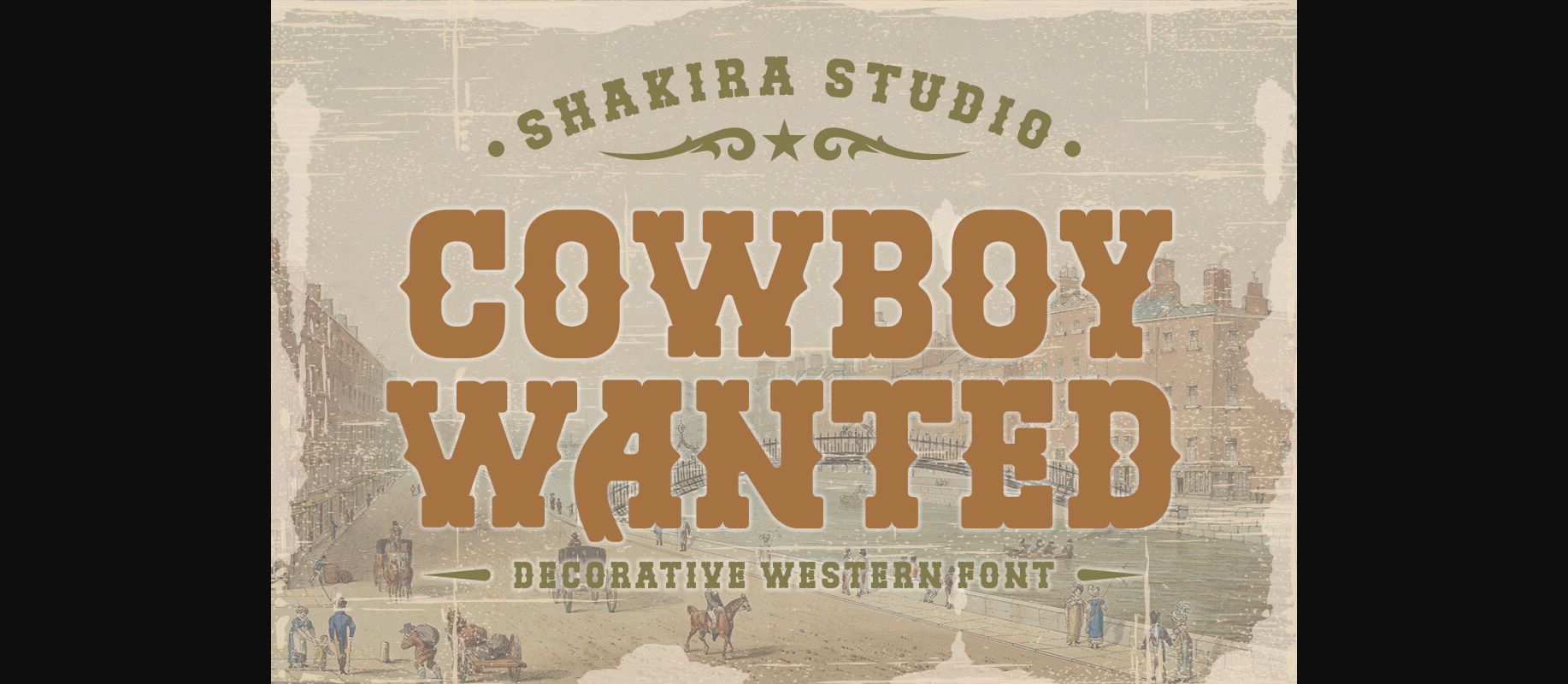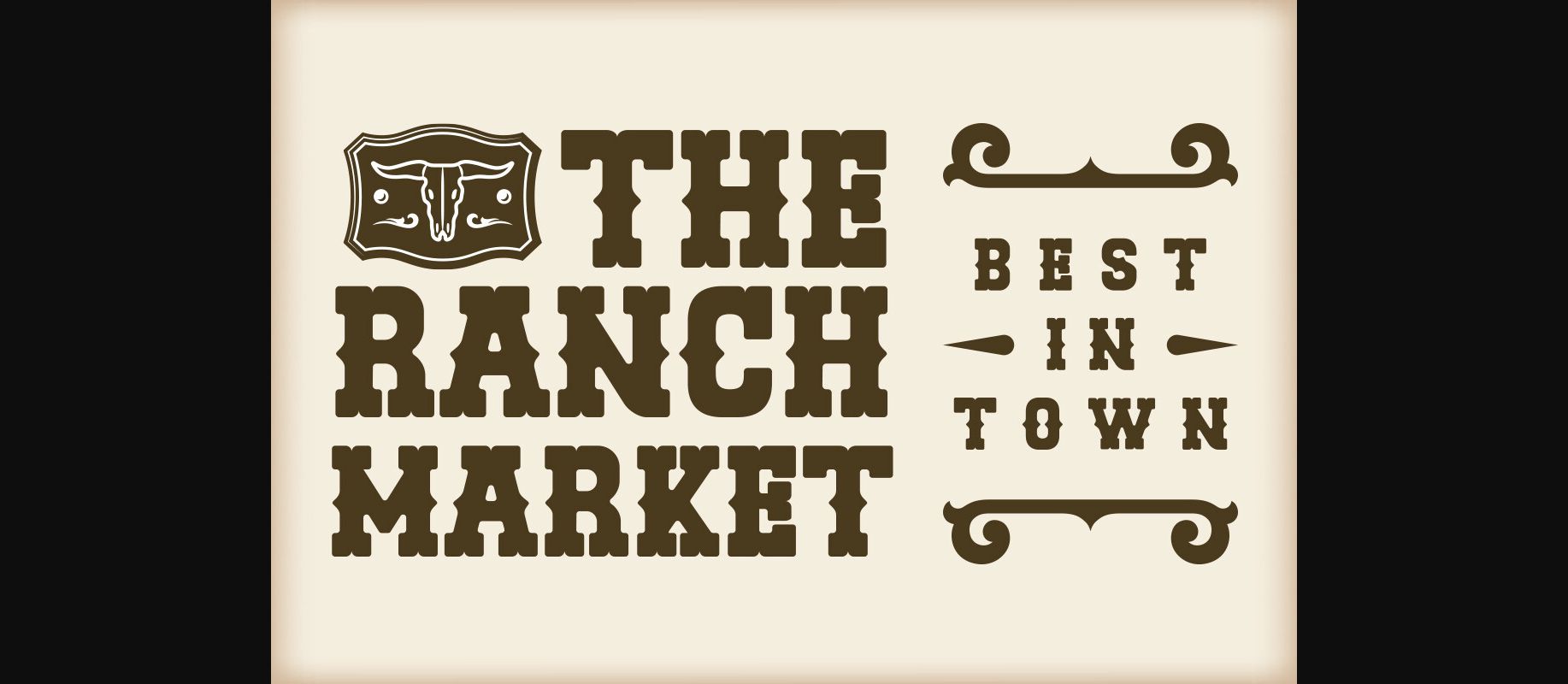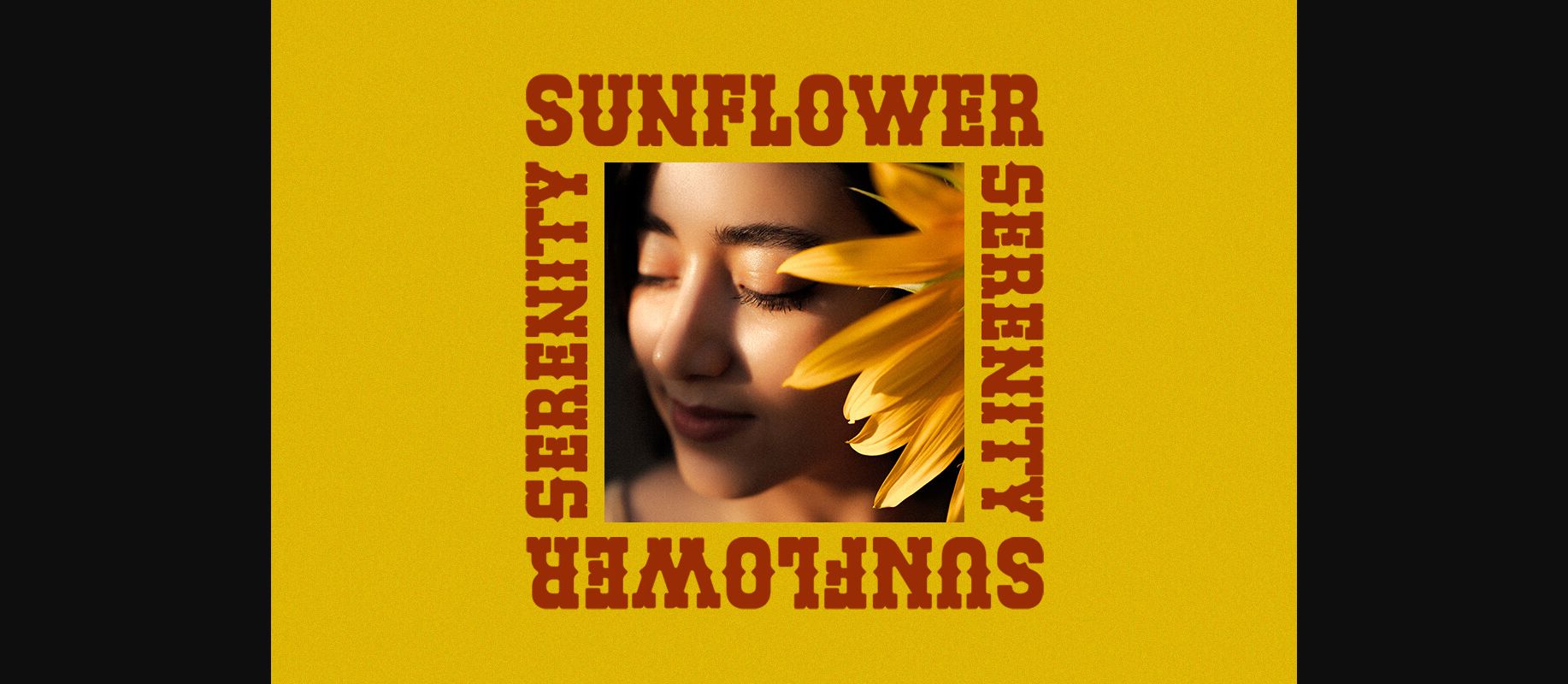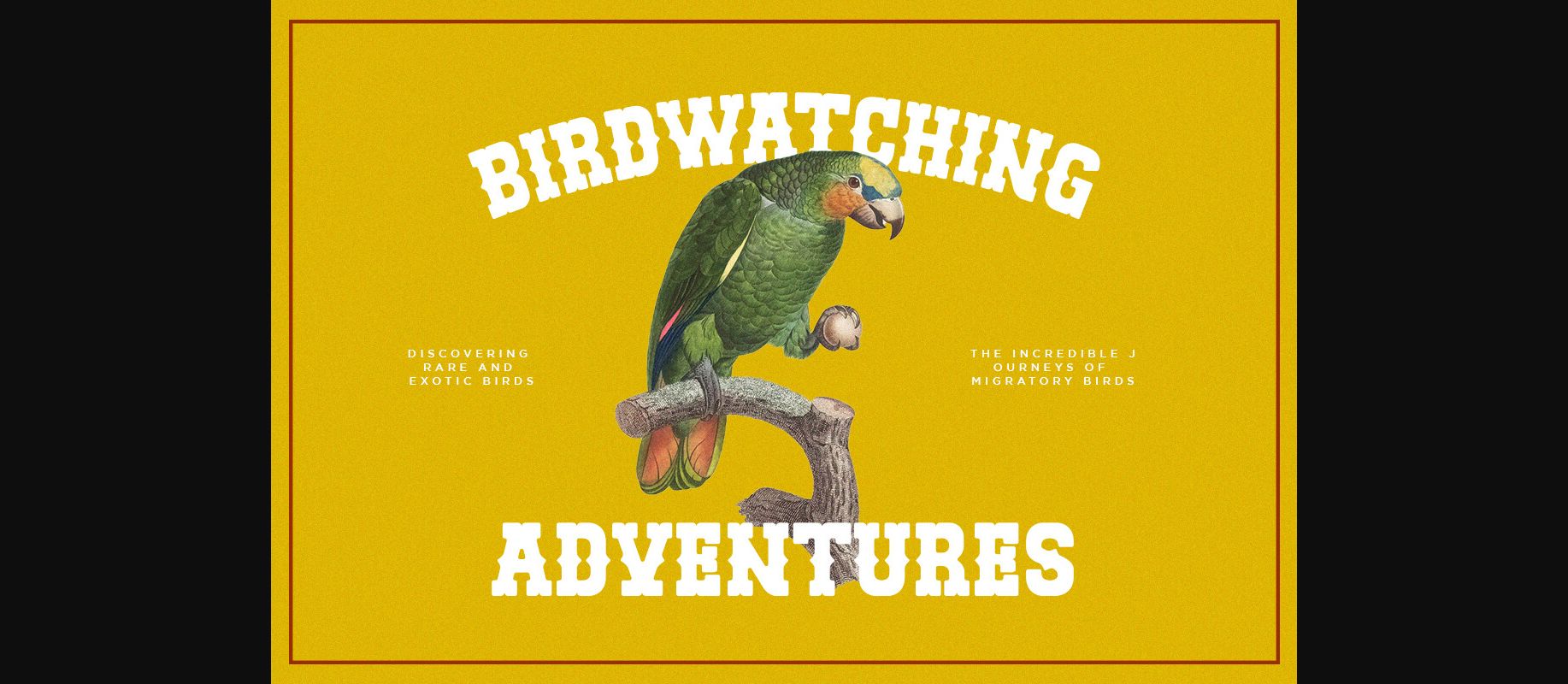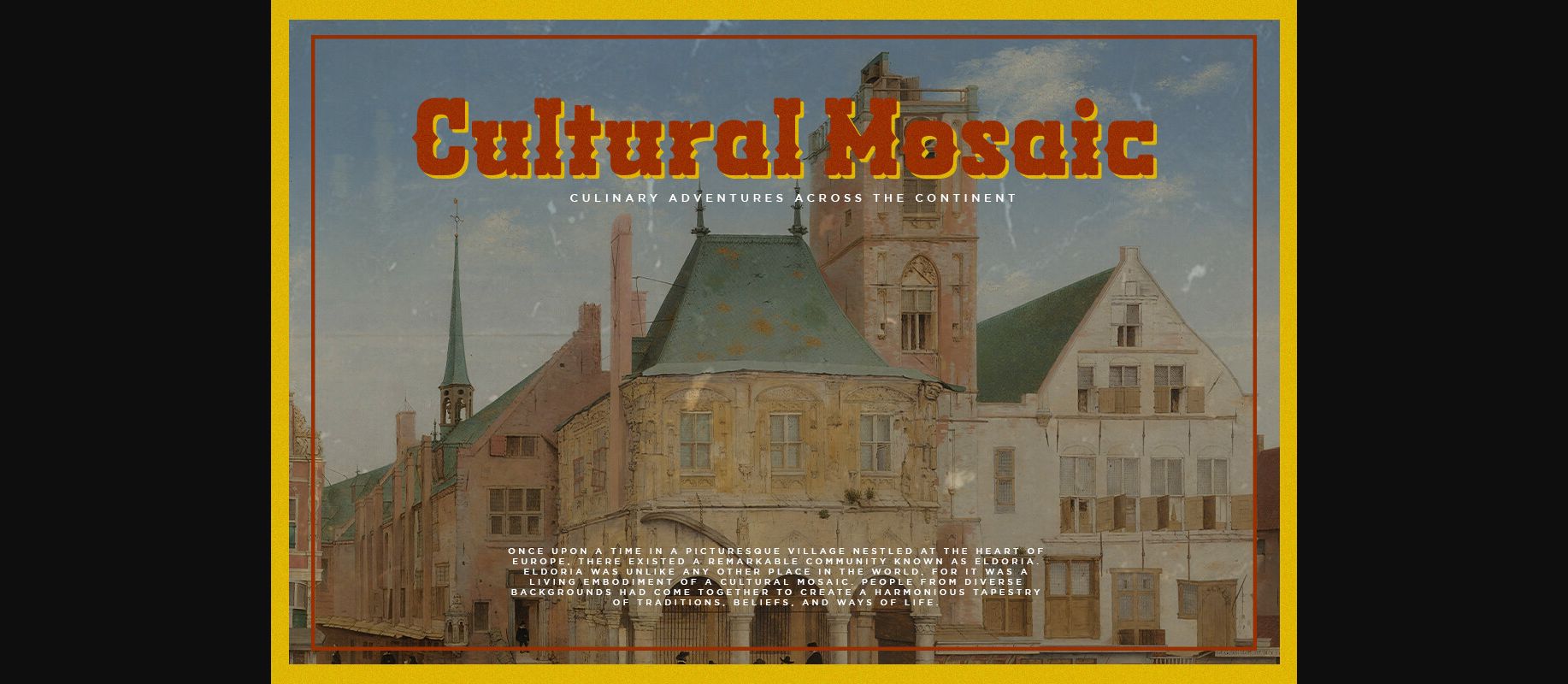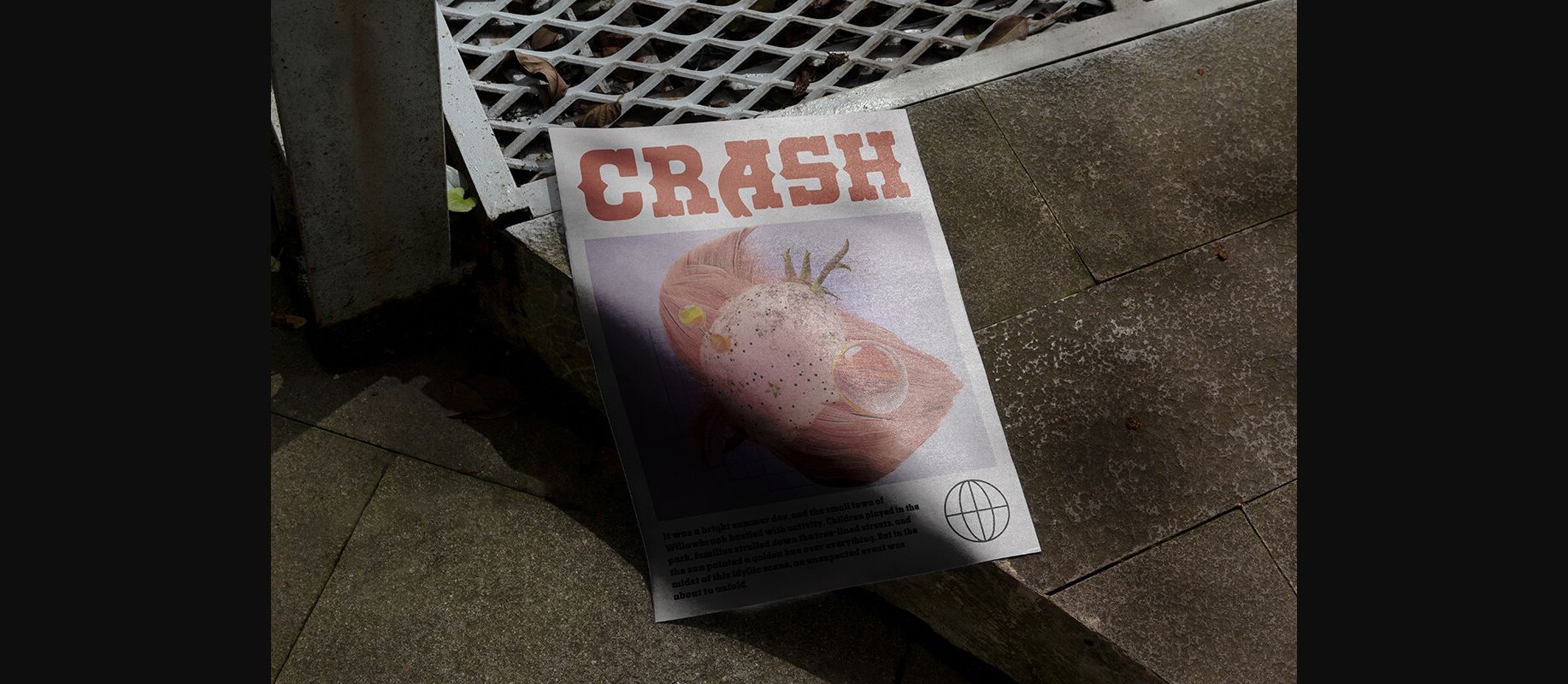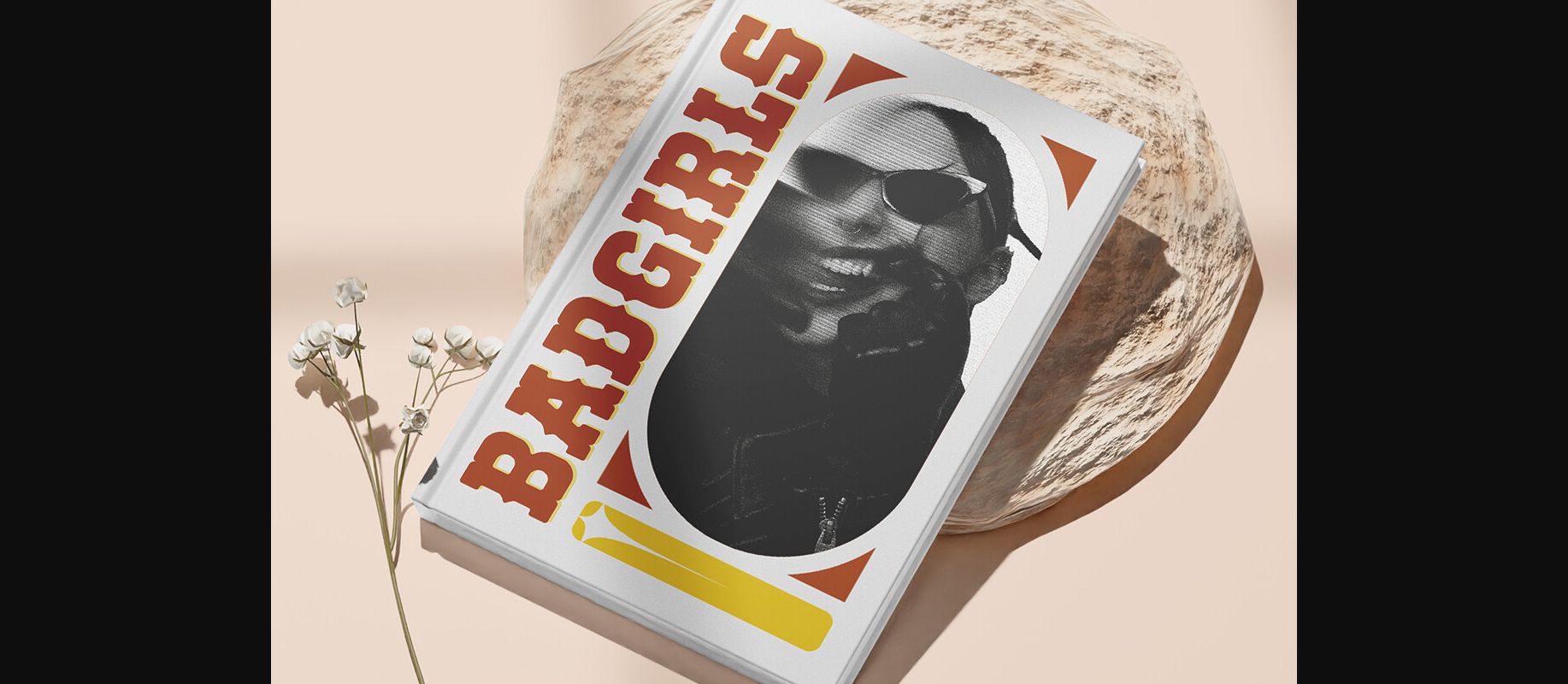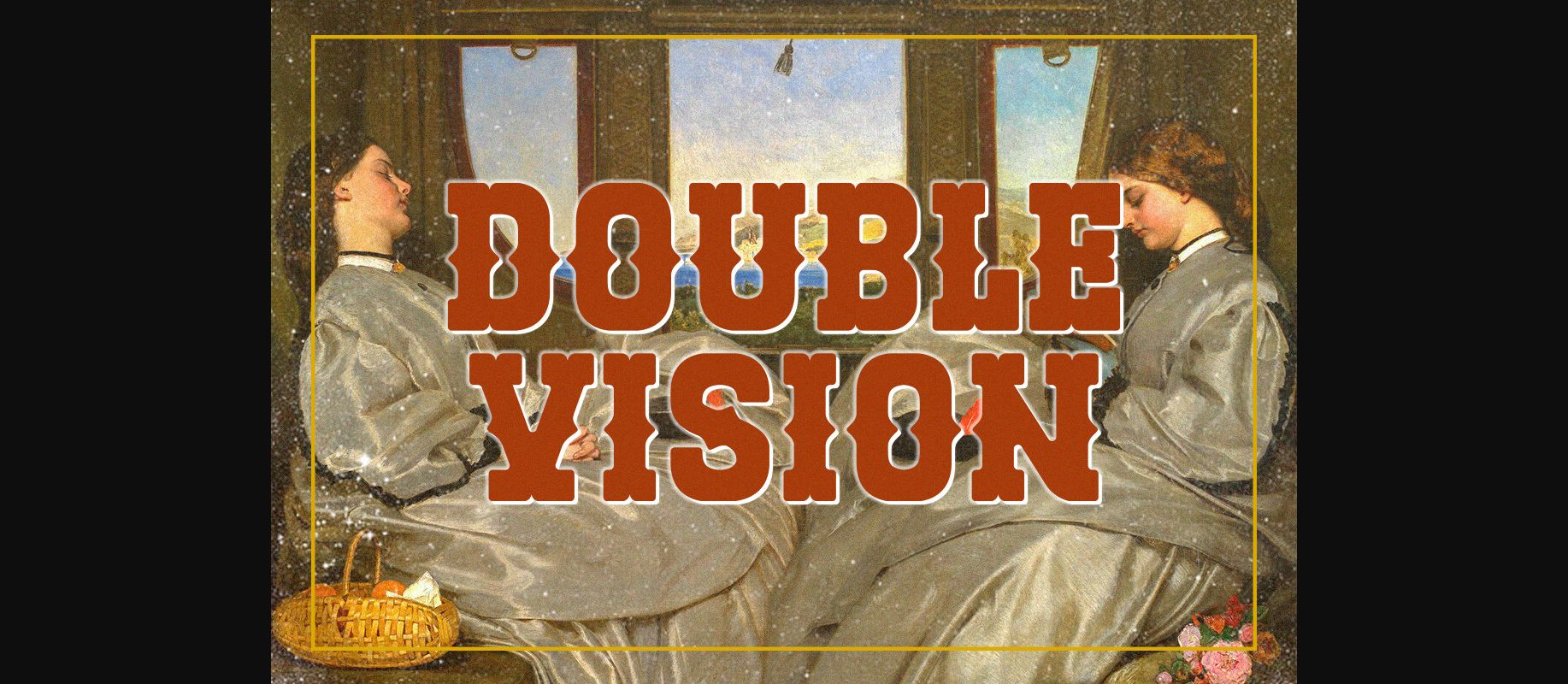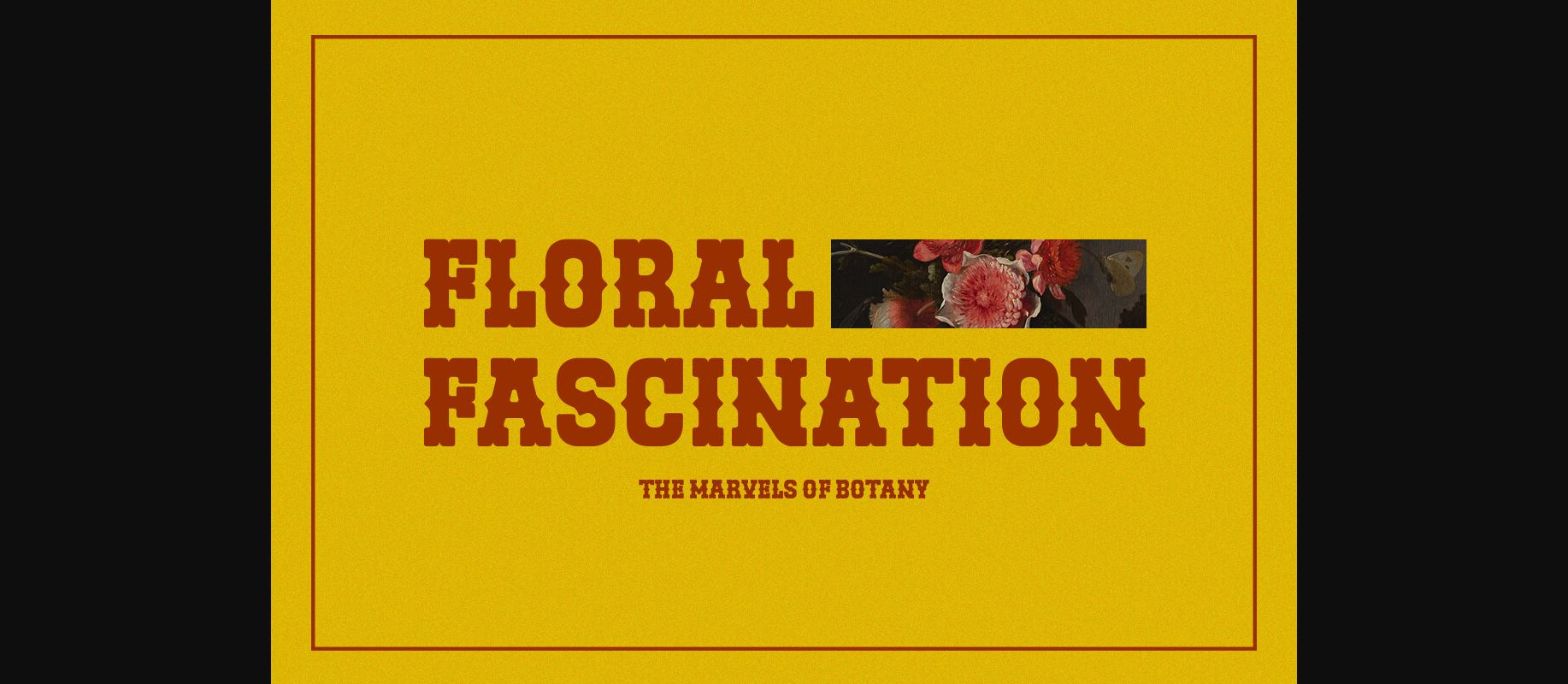
Cowboy Wanted Font
Introducing “Cowboy Wanted” – The Ultimate Western Retro Serif Font!
Saddle up and embrace the wild, wild west with Cowboy Wanted, the font that’s taking the design world by storm. This font embodies the perfect blend of old-school ruggedness and contemporary flair, making it the hottest ticket in town for all your Western-inspired design needs.
Each character in Cowboy Wanted is meticulously crafted to capture the essence of the Old West, from the sweeping serifs to the rugged lines. Whether you’re working on a saloon-inspired logo, a rustic poster, or a themed event invitation, Cowboy Wanted adds that authentic Western touch that’s so in demand right now.
Don’t miss your chance to lasso the trendiest Western retro serif font of the moment. With Cowboy Wanted, you’ll be the sheriff of style in your design projects, standing out in the crowded frontier of design. Saddle up and make a bold statement with Cowboy Wanted today!